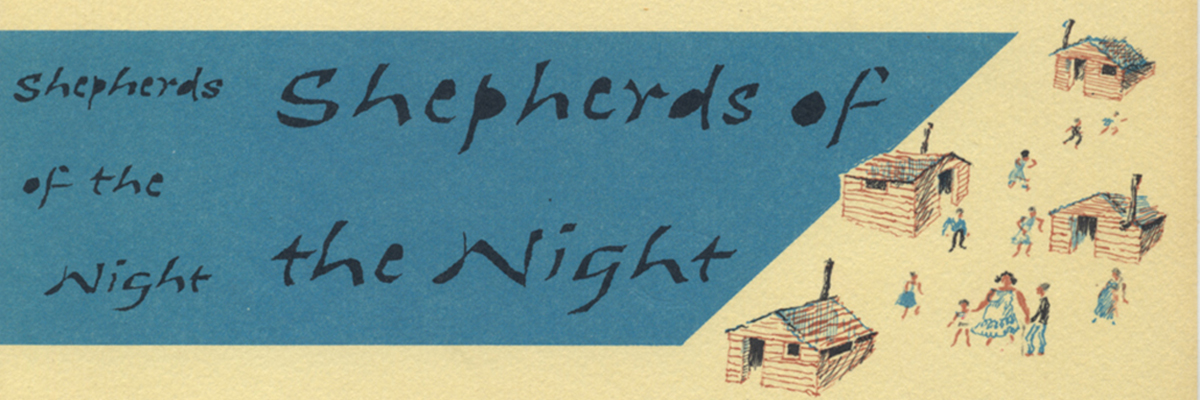
George Salter (1897–1967) was arguably the leading American book jacket designer from the time he arrived in the United States in 1934, following a forced emigration from Nazi Germany, until his death in 1967. He had already been one of the most influential jacket designers in Weimar Germany, a period rich in innovative book covers. For all of their inventiveness and variety, Salter's German jackets lacked a defining aesthetic. Some are expressionistic, some are classical; some are illustrated while others are photographic; and others rely solely on type, hand lettering or calligraphy. In contrast, Salter's American jackets—especially after 1940—relied on a combination of illustration and calligraphy. His calligraphy, in service to the emotional aspects of a book, was idiosyncratic and unpredictable. This talk will look at the role that calligraphy played in Salter's jacket designs and trace its evolution from the 1930s to the 1960s.